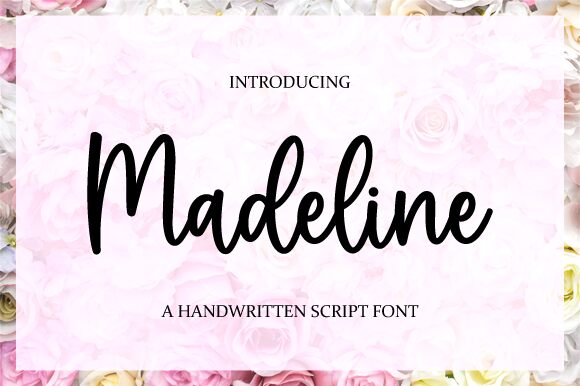
Madeline
Madeline, crafted by Nirmala Creative, is a handwritten font that radiates charm and sophistication. With its semi-light weight, it strikes the perfect balance between delicate grace and legible strength. This font is an artist's dream for projects that require a personal touch with an air of elegance. Whether you're designing enchanting logos, compelling branding or inspirational quotes, Madeline's fluidity and expressive style ensure your creations make an unforgettable impression.
Thanks to PUA encoding, accessing all of the whimsical glyphs and swashes is a breeze, allowing designers to unleash their creativity without limits. The versatility of Madeline makes it not just a font but a vital tool for those who seek to infuse their work with character and heart. Explore how Madeline can elevate your design narrative and bring your artistic vision to life.